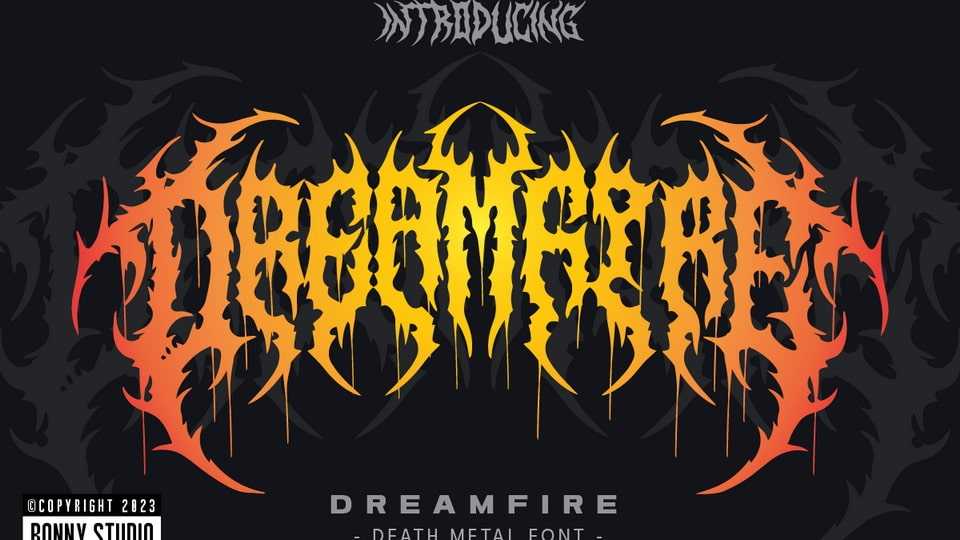
Download Dreamfire font, a cool alternative typeface to easily create a logo for your Underground band or whatever. Perfect for the extreme music sector – the classics of Death- and Blackmetal like pentagram drops, roots, spikes and more.